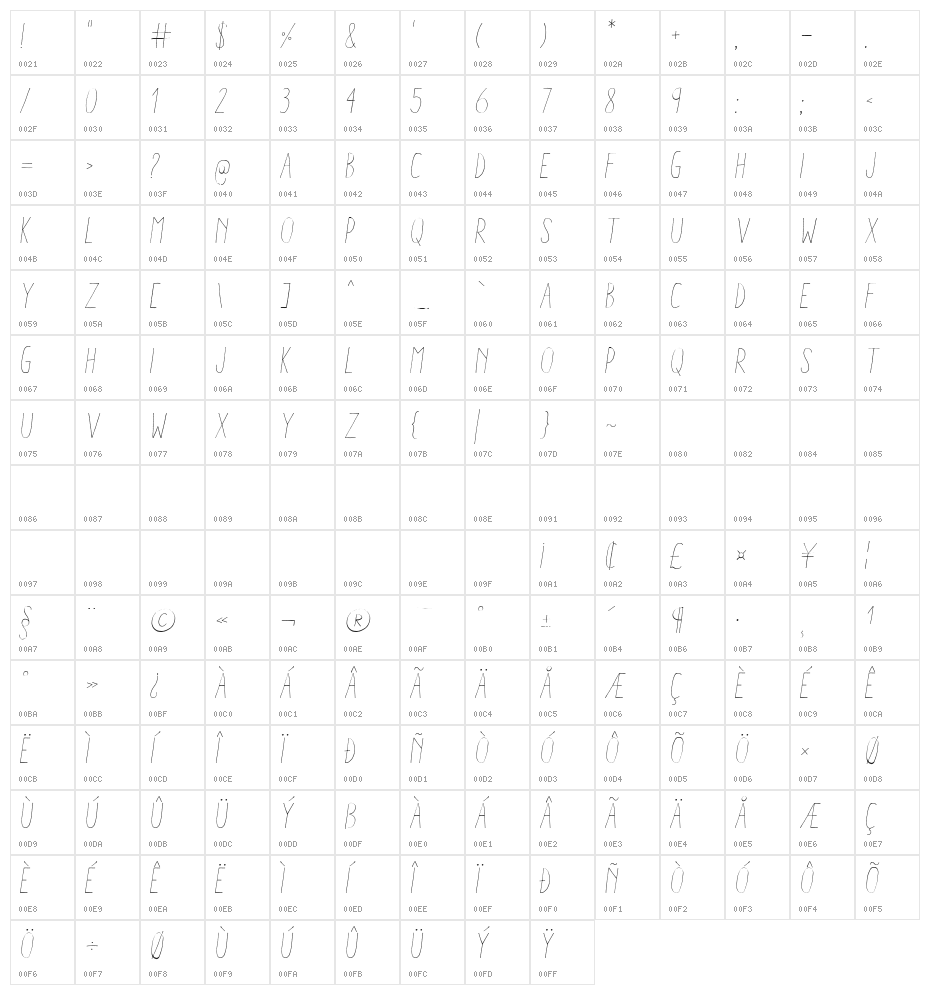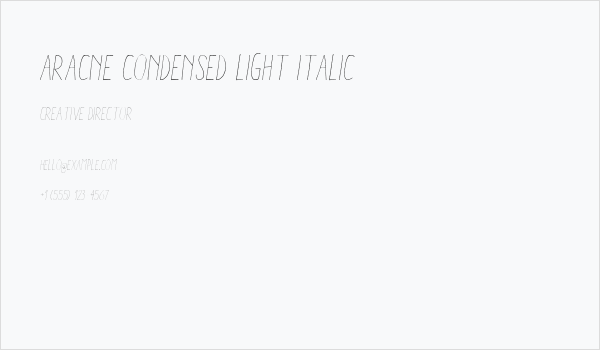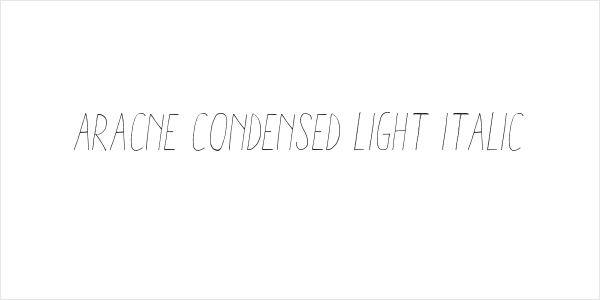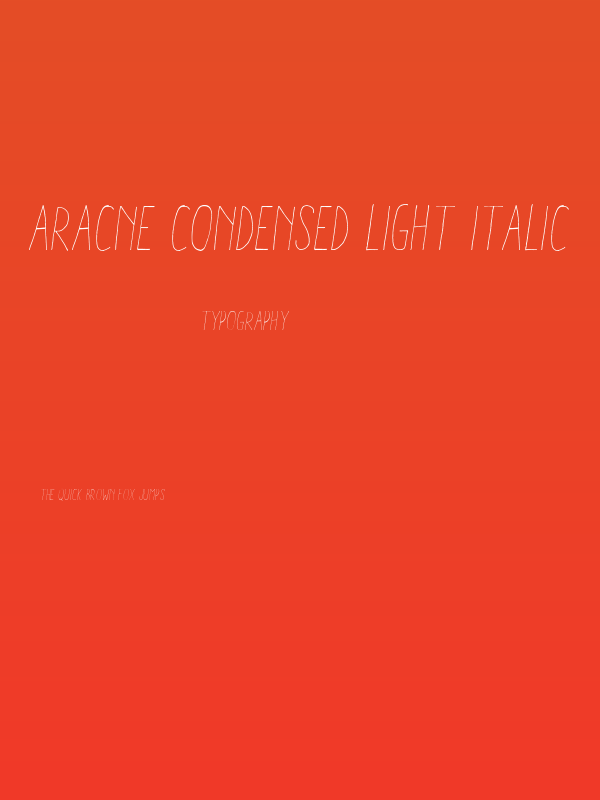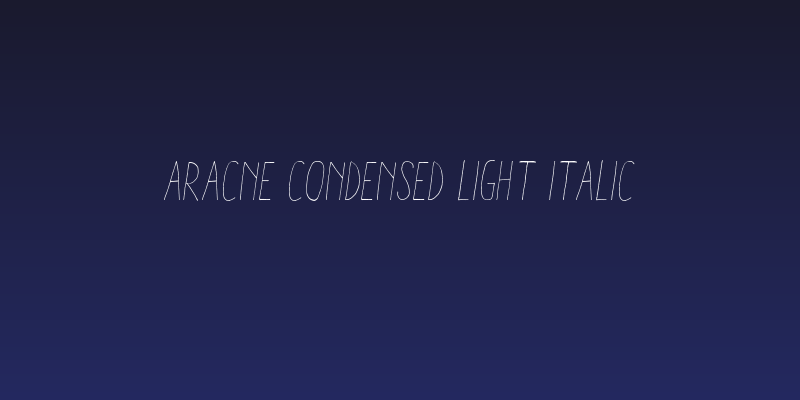
Aracne Condensed Light Italic Font
Aracne Condensed Light Italic Description
This font features a delicate and elegant design with a condensed and light structure. The italic style adds a sense of movement and fluidity, making it appear dynamic and lively. The characters are tall and slender, with a slight slant that enhances the overall graceful appearance. The strokes are thin and consistent, contributing to a refined and sophisticated look. The spacing between characters is tight, which complements the condensed nature of the font, allowing for efficient use of space while maintaining readability.
| Proposed Projects | Ideal for fashion magazines, elegant invitations, branding for luxury products, and artistic posters. |